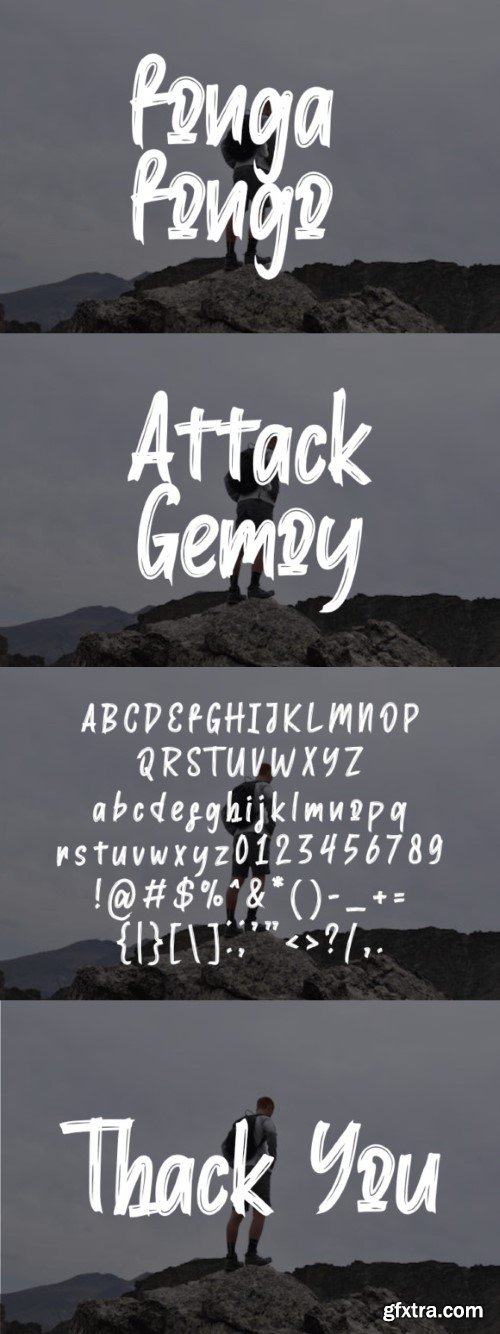
锋戈凤哥字体
Experience the expressive charm of Fonga Fongo, a dynamic handwritten type font. Ideal for adding a distinctive touch to products, t-shirts and a myriad of other applications, it offers an artistic blend of form and function. Embrace the captivating allure of Fonga Fongo, and let your creativity flow.